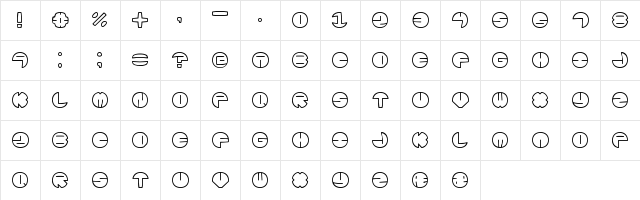
Zurklez Outline BRK Regular Free Font
Zurklez Outline BRK Regular
Design Context for Zurklez Outline BRK
Zurklez Outline BRK is built around its visual character rather than neutral utility - its distinctive forms are designed to make an impression at display sizes.
Font Pairing: Pair with a clean neutral sans-serif for body copy to let Zurklez Outline BRK's character lead without overwhelming the composition.
Pro Tip: Use Zurklez Outline BRK exclusively at display sizes - it was designed to be seen, not read at length. Let a neutral companion handle body copy.